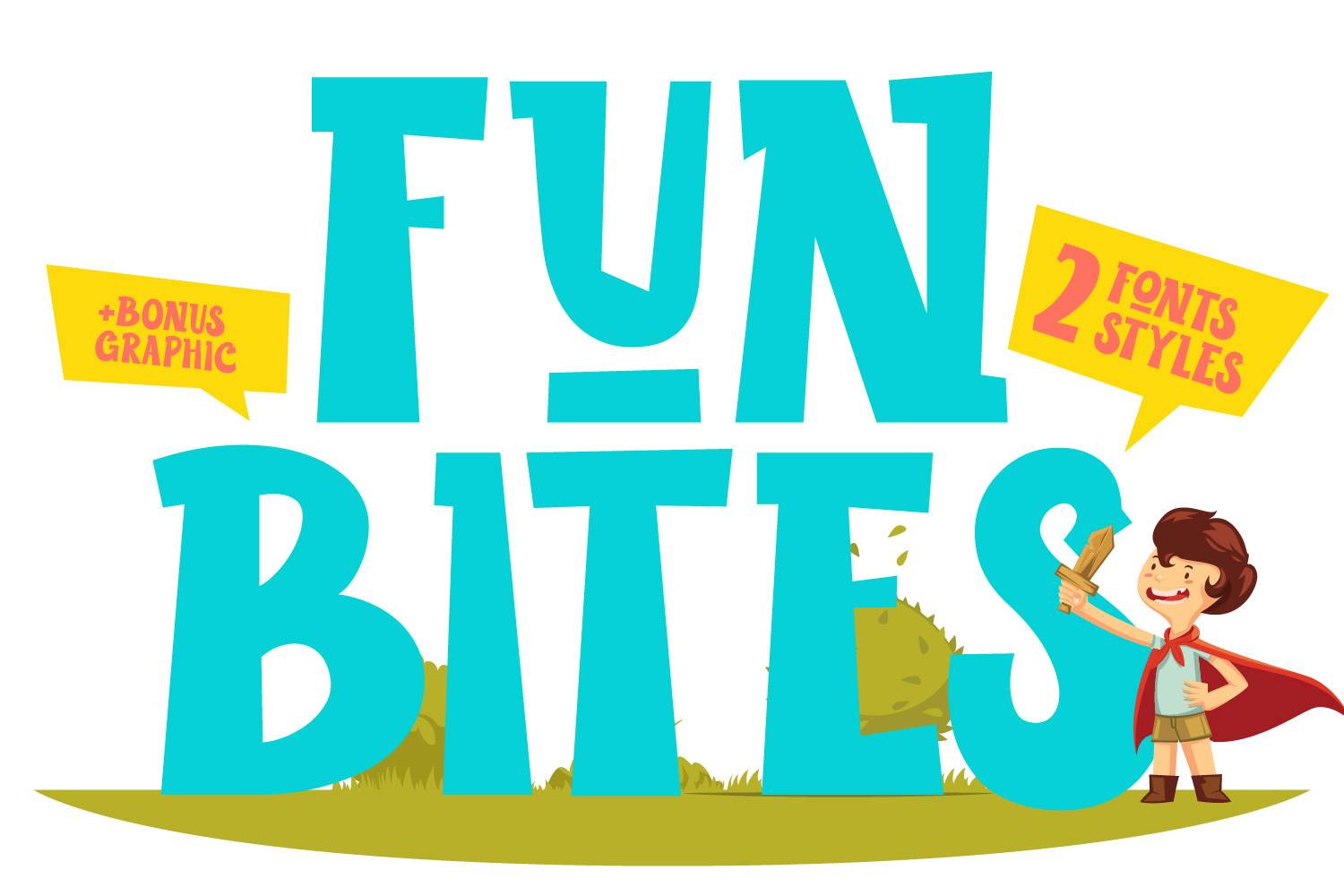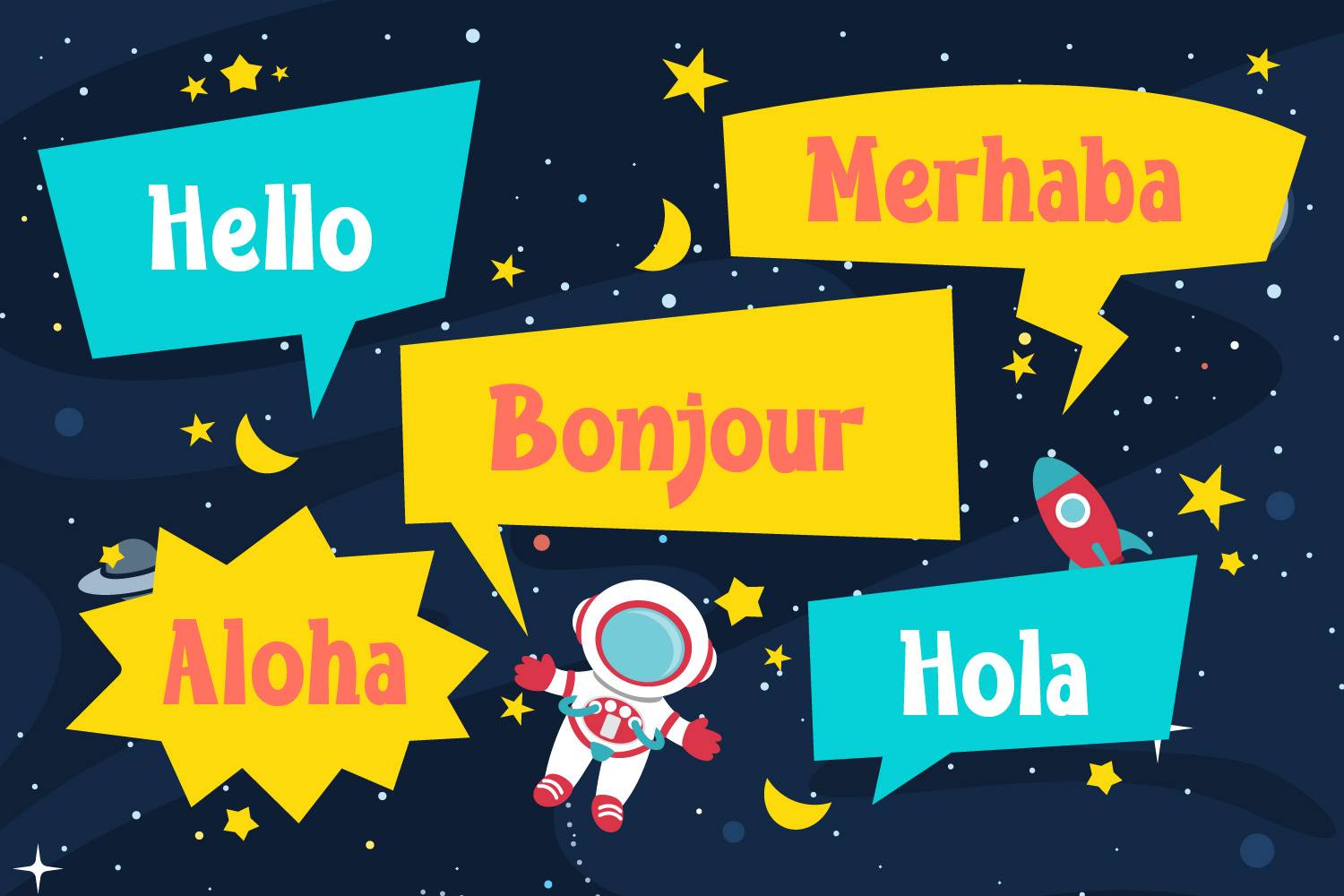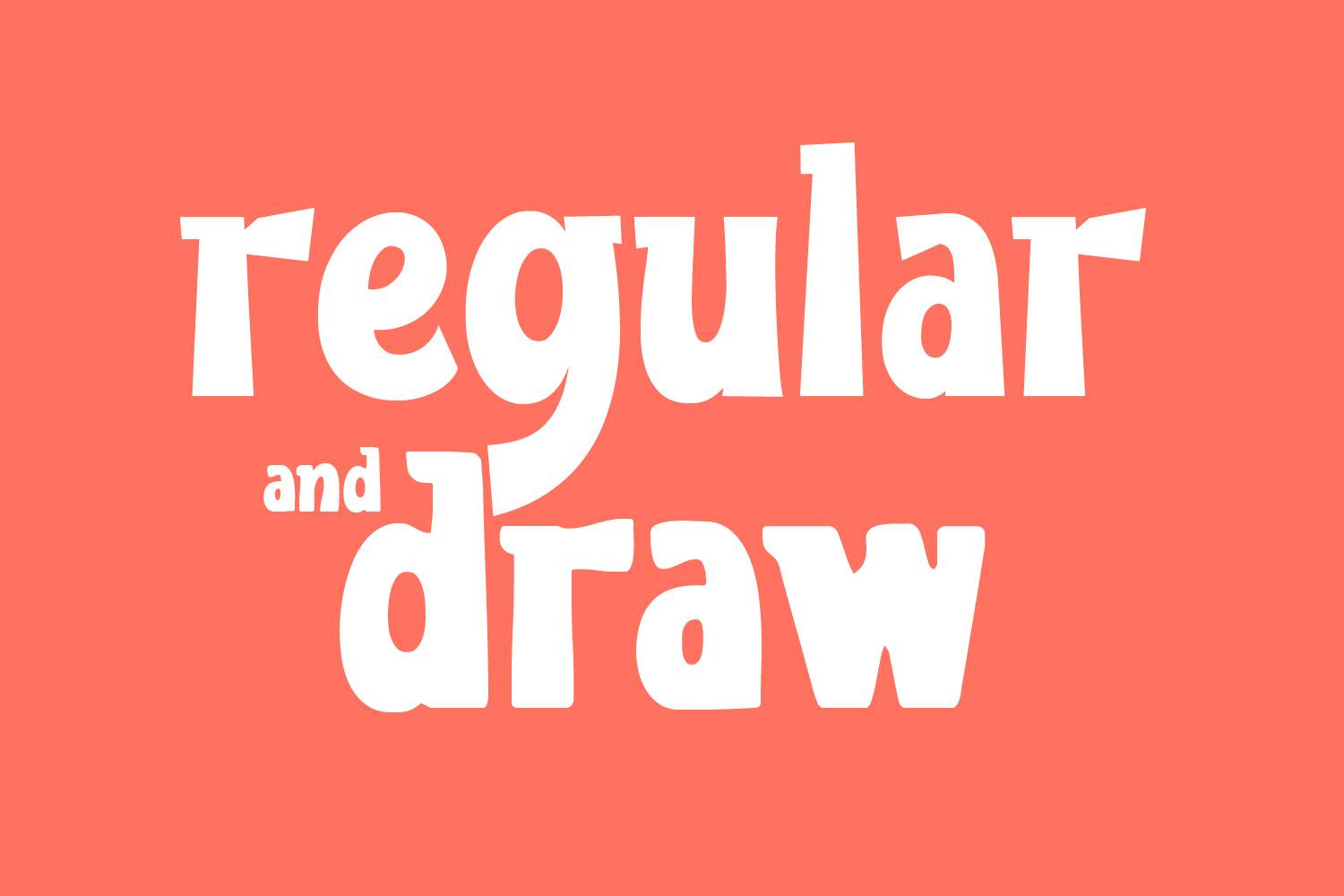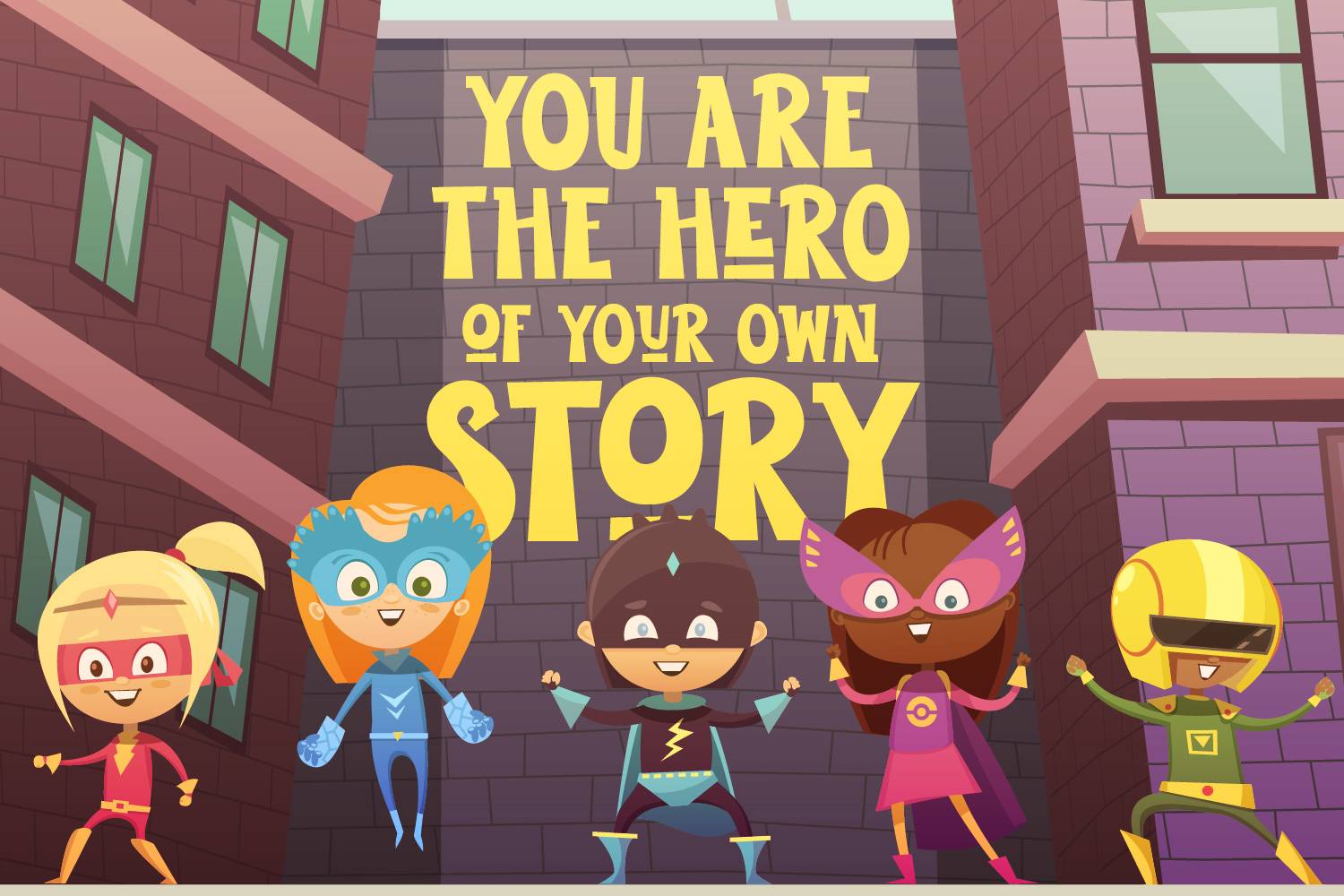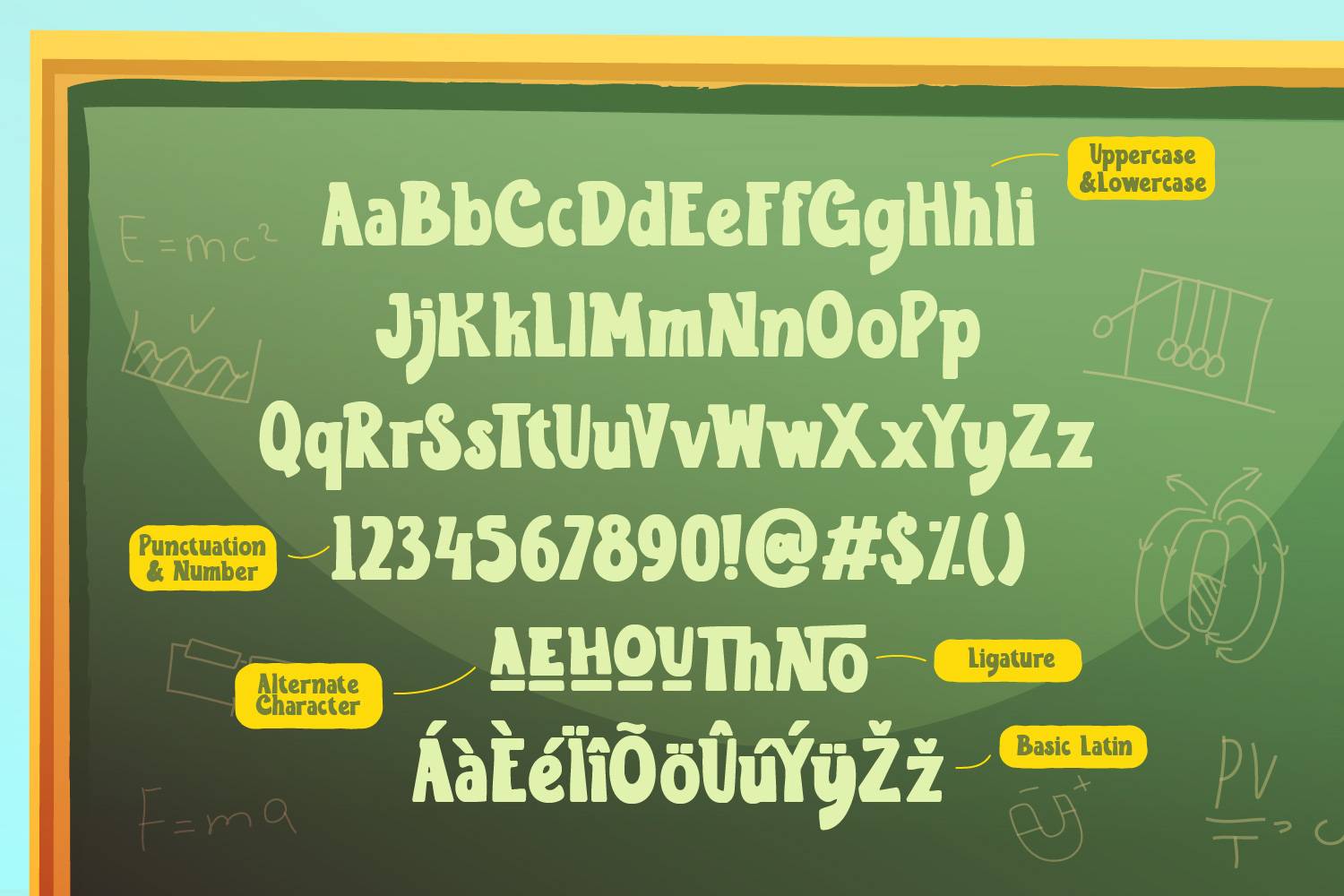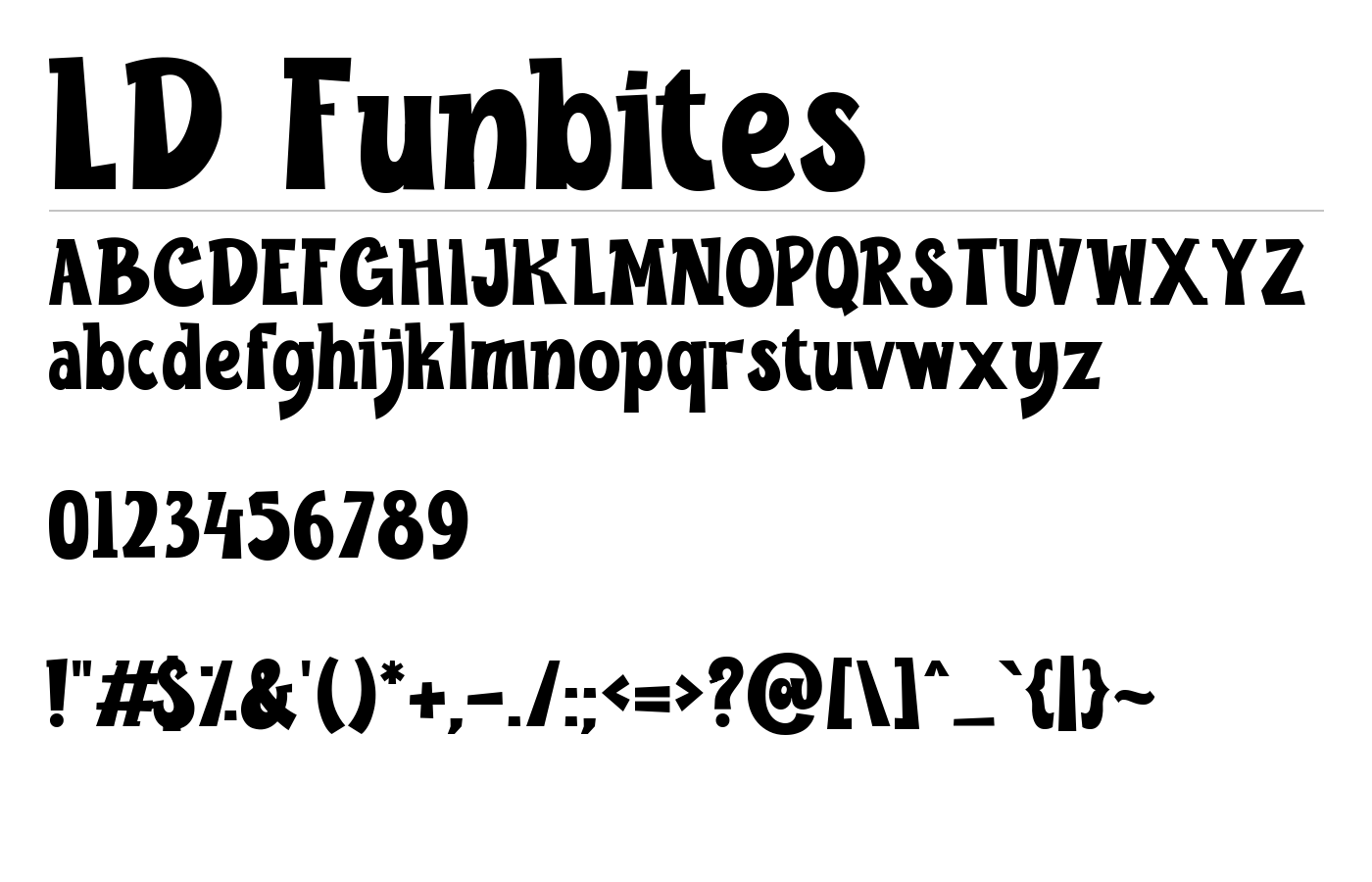
LD Funbites is a playful sans-serif font with bold, irregular shapes that give it a fun and quirky personality. Its tall, slightly condensed letters with uneven strokes and whimsical curves make it perfect for eye-catching headlines, children’s designs, and casual branding where a lively and informal tone is desired. This font works best in creative, lighthearted contexts that benefit from its energetic and approachable style.
LD Funbites Font
About LD Funbites Font
| Font family | LD Funbites Font |
| Release date | 2020-05-01 |
| Designer | Andika Setiawan |